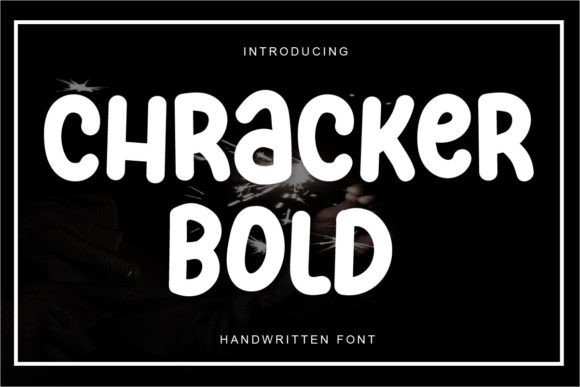
The Magic of Holiday Typography: Discover Chracker Bold Font
There’s something special about the holiday season, isn’t there? The twinkling lights, the warm fireplace, and the sound of jingling bells all come together to create a sense of joy and wonder. As a designer, you’re likely no stranger to the magic of typography, and the way a well-chosen font can elevate your designs and transport your audience to a festive world.
Enter Chracker Bold Font, a delightful and charming typeface that embodies the spirit of the holiday season. With its playful decorations and unique flair, this font is the perfect addition to your holiday designs, from greeting cards and gift labels to festive brochures and web pages. Whether you’re a seasoned designer or just starting out, Chracker Bold Font is a valuable asset to have in your toolkit.
Chracker Bold Font Key Features
- Font Family: Chracker Bold, a unique and modern sans-serif font designed for readability and versatility.
- Unique Characteristics: Chracker Bold features a bold and confident design, making it perfect for headlines, titles, and other prominent text elements.
- Language Support: Chracker Bold font supports a wide range of languages, including Latin, Cyrillic, and Greek alphabets, making it a great choice for multilingual designs.
Designer Review: Chracker Bold Font
I’ve had the chance to work with the Chracker Bold Font, and here’s my honest review.
- Contrast: The bold weight of the font provides excellent contrast on digital screens, making it perfect for headings and titles.
- Legibility: The font is highly legible, even at smaller font sizes, making it suitable for body text and large blocks of content.
- Flexibility: The Chracker Bold Font can be used in a variety of contexts, from modern and sleek to traditional and elegant.
- Lack of Italic and Oblique Styles: The font only comes in a single bold weight, which may limit its versatility in certain design applications.
- Not Ideal for Small Text: While the font is legible, it may not be the best choice for very small text, where other fonts may be more readable.
Overall, I think the Chracker Bold Font is a solid choice for designers looking for a bold, modern font. While it has some limitations, its strengths make it a great addition to any design project. With a bit of creativity, it can be used to create stunning visual effects and add depth to any design.
Chracker Bold Font: A Practical Application Guide
The Chracker Bold Font is ideal for creating eye-catching headings and titles. Use it to add emphasis to your design and make it stand out.
Some common use cases include:
- Headings and titles in business presentations and reports.
- Advertising and marketing materials.
What is the recommended line spacing for Chracker Bold?
The recommended line spacing for Chracker Bold is 1.2 to 1.5 times the font size. This will ensure that the text is easy to read and maintain a balanced visual flow. For digital applications, a line height of 1.2 is recommended, while for print materials, a line height of 1.5 is more suitable.